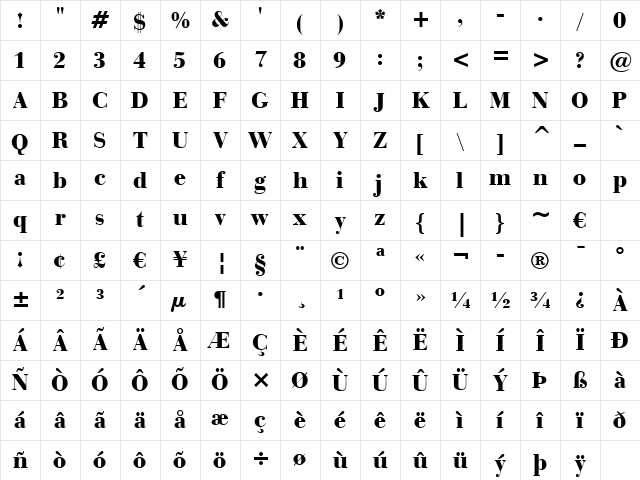
BauerBodni Blk BT Black
Design Context for BauerBodni Blk BT
BauerBodni Blk BT is a composed and adaptable typeface that performs quietly and consistently across a wide range of design contexts.
Pro Tip: Use BauerBodni Blk BT in both headline and body roles to test its range before committing to a single application.